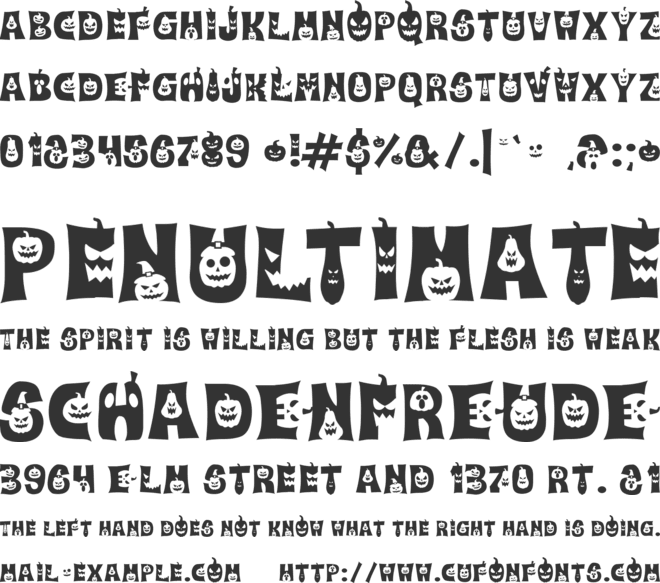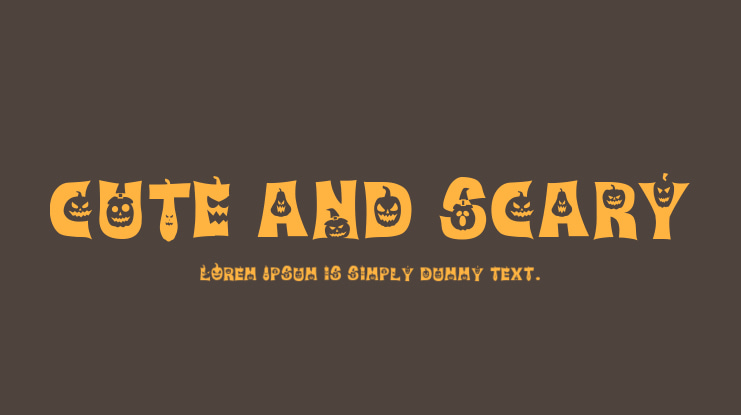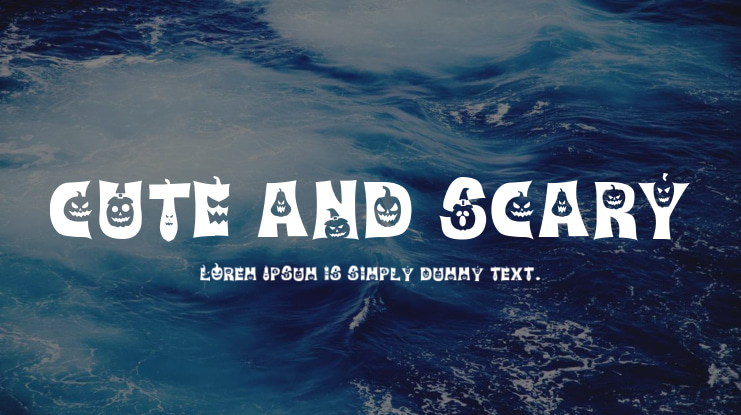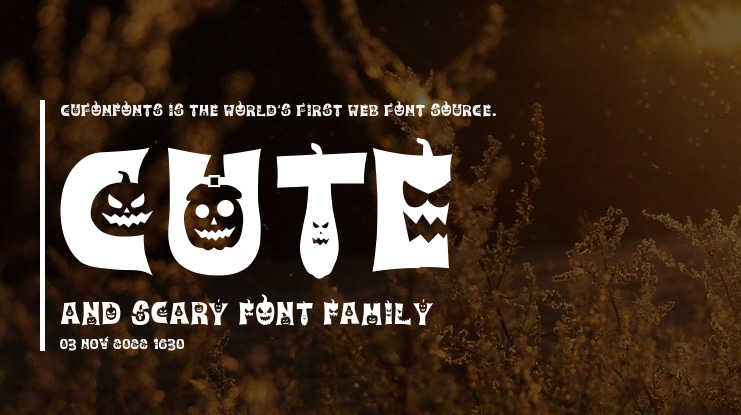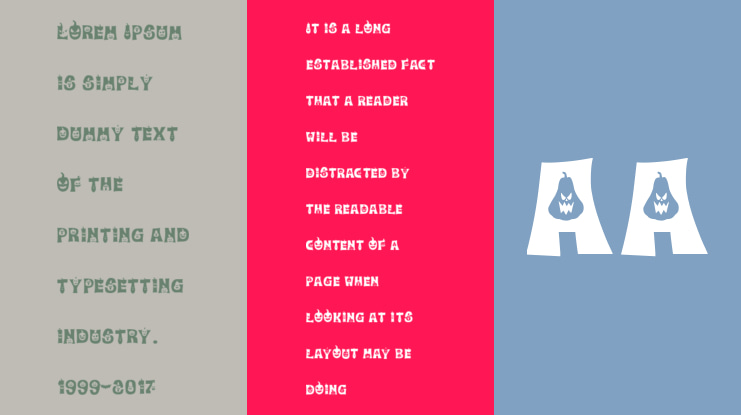
cute and scary Font
With Halloween just around the corner, it's time to embrace the spooky season—cute and scary style! 😉
Introducing a deliciously spicy font that includes uppercase and lowercase letters, numbers, and a variety of punctuation.